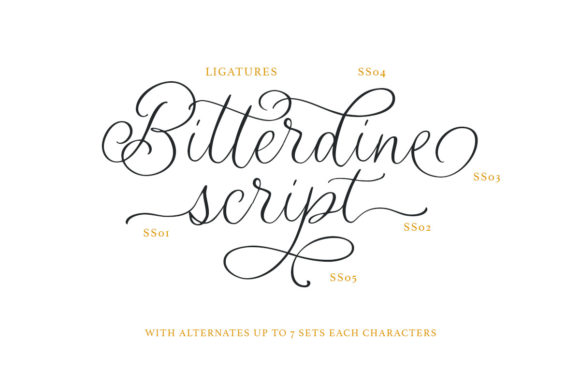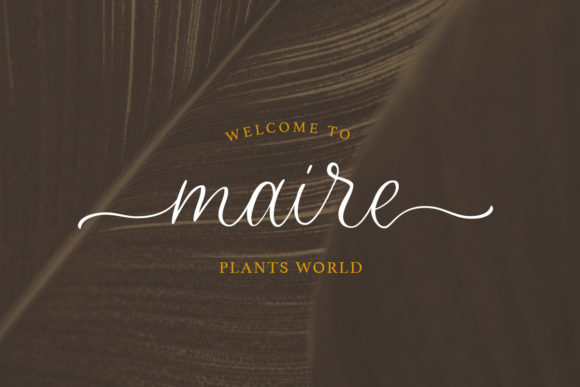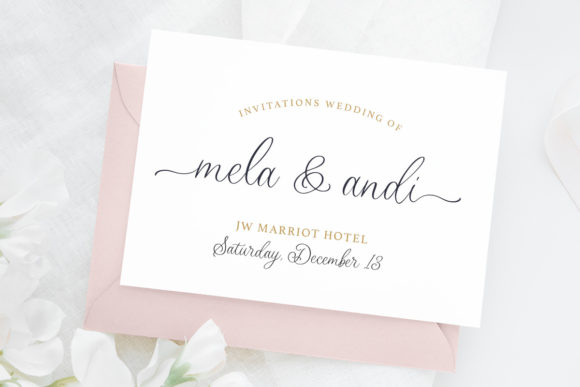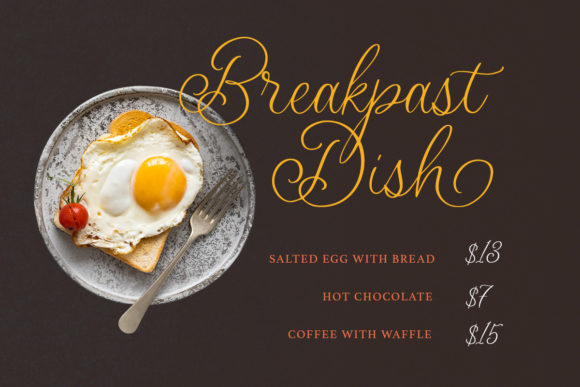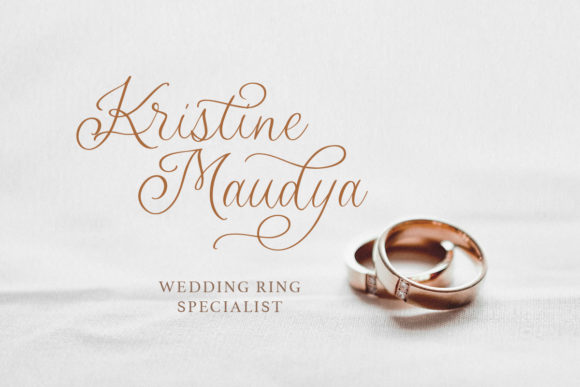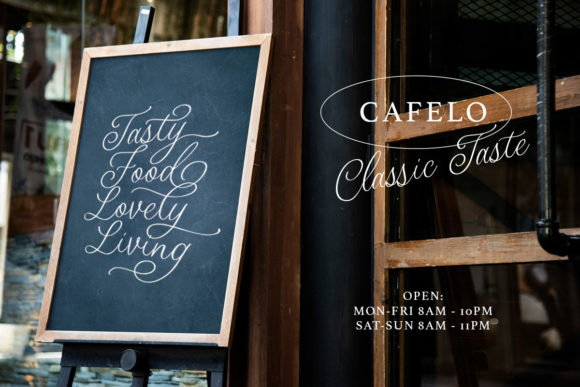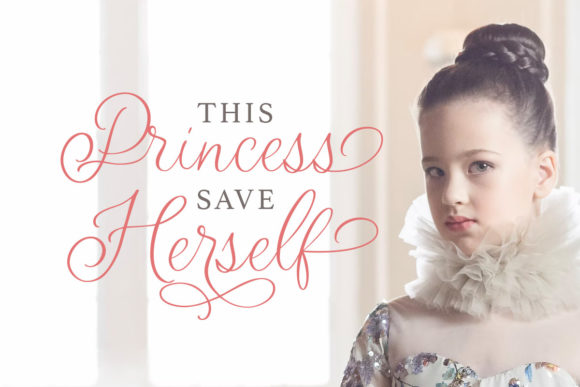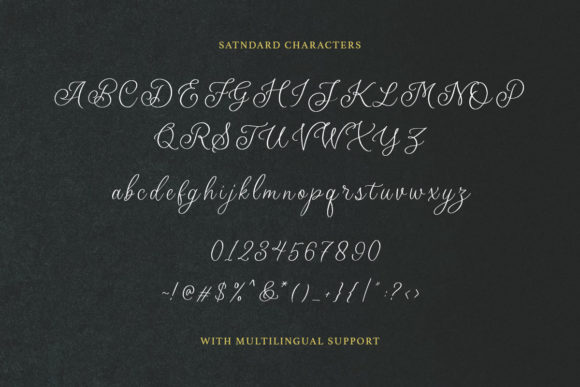
Bitterdine Font
About Bitterdine Font
Bitterdine Script is a modern and natural calligraphy that contain lowercase, uppercase, symbol, and also supports multi language. It is thin, delicate and flowing and it has a wonderful touch.